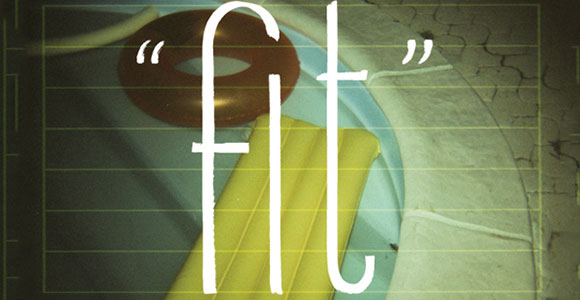
Free Skinny Marker Font
Take a look at this awesome free skinny marker font. The Hungry JPEG has created this amazing and beautiful free font. Easily amaze your audience with this beautiful font and make your graphic designs pop up from the crowd.